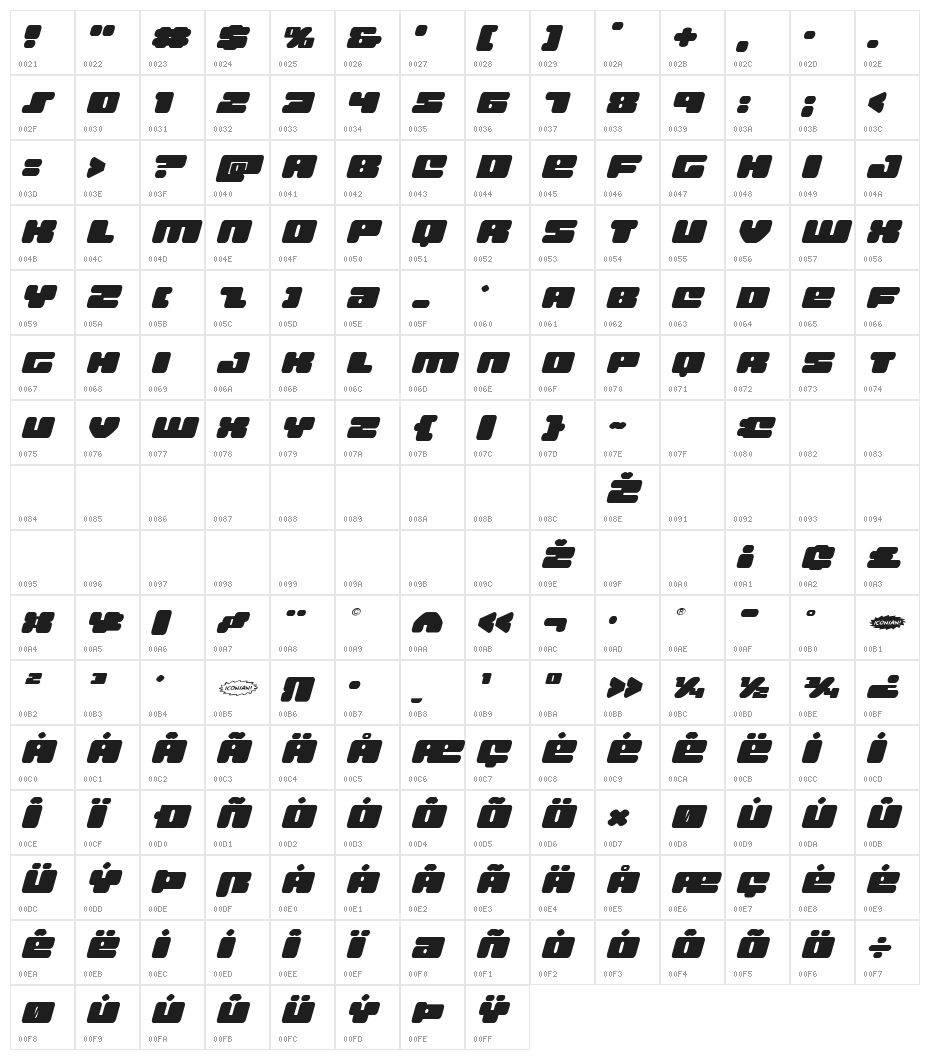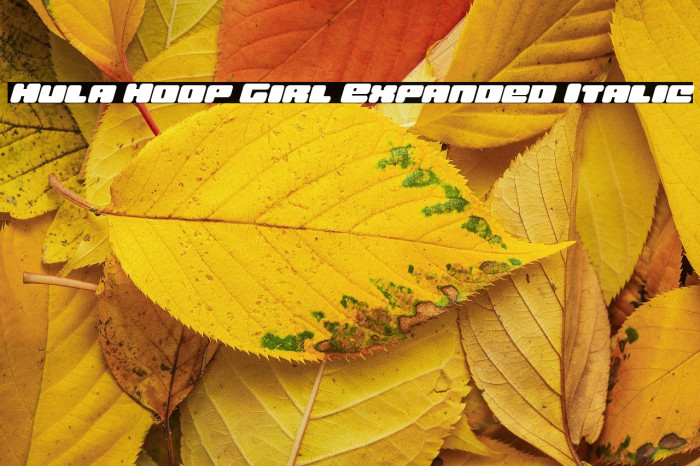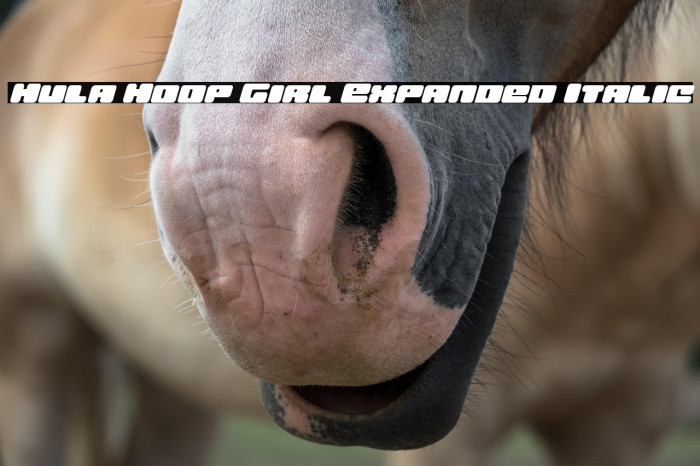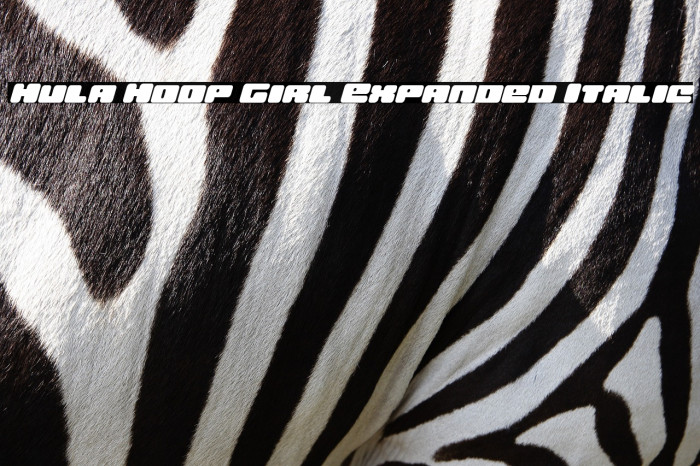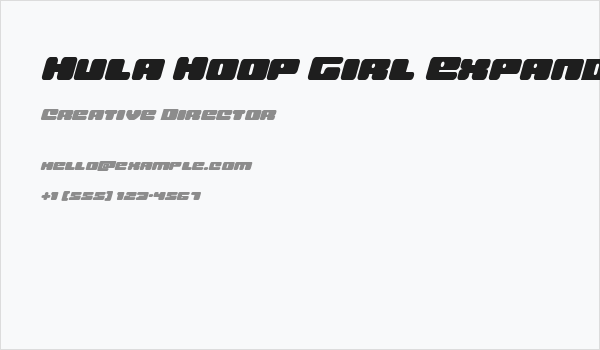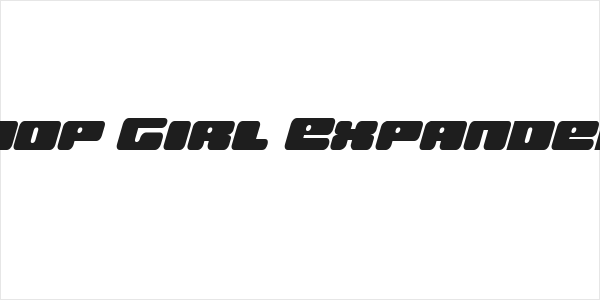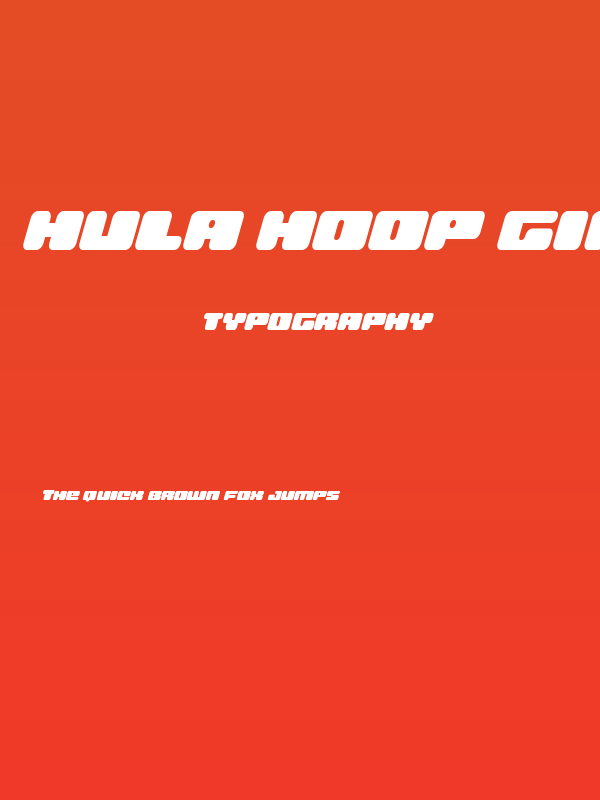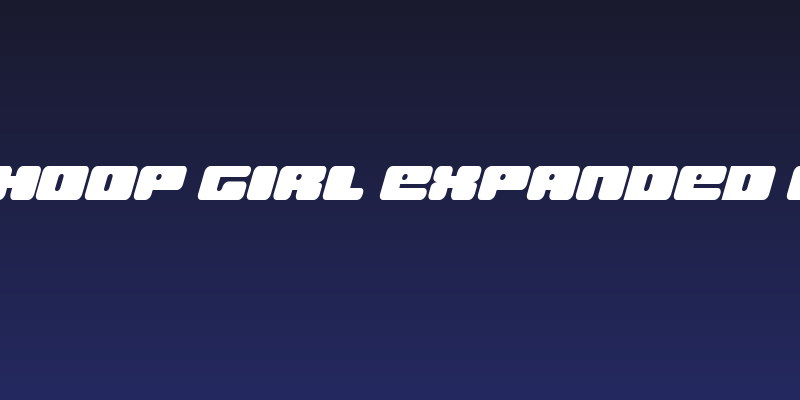
Hula Hoop Girl Expanded Italic Font
Hula Hoop Girl Expanded Italic Description
This font features a bold, playful style with a distinctly rounded and expanded appearance. The characters are italicized, giving them a dynamic and energetic feel. The strokes are thick and uniform, contributing to a strong visual impact. The design is reminiscent of retro or vintage styles, with a modern twist that makes it suitable for eye-catching displays. The letters are closely spaced, enhancing the compact and cohesive look of the text. This font is ideal for projects that require a fun and engaging aesthetic, such as posters, advertisements, or branding materials.
| Overall Style | Retro-Modern |
| Proposed Projects | Ideal for posters, advertisements, branding materials, and any project needing a fun, engaging aesthetic. |